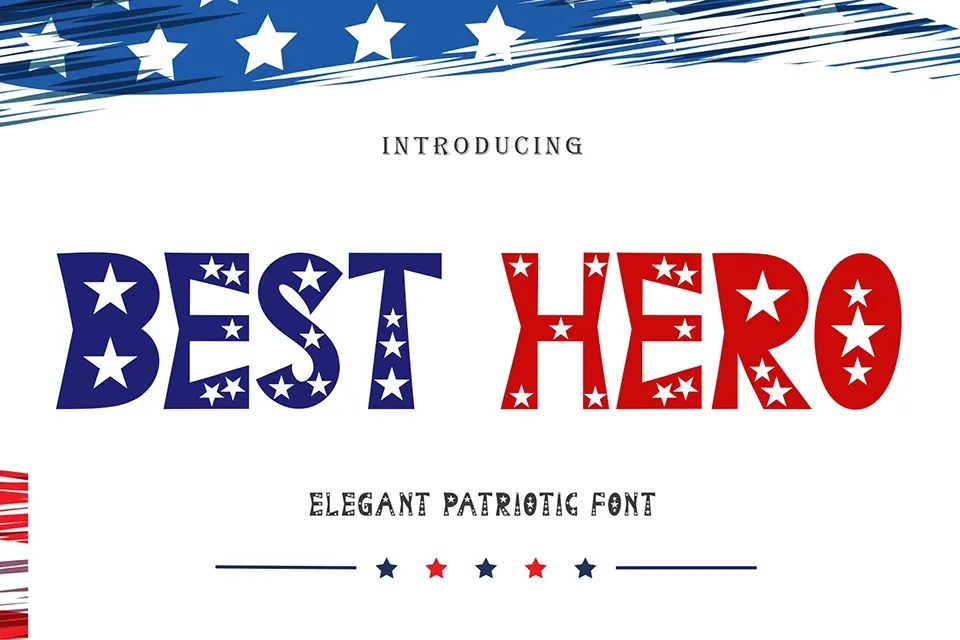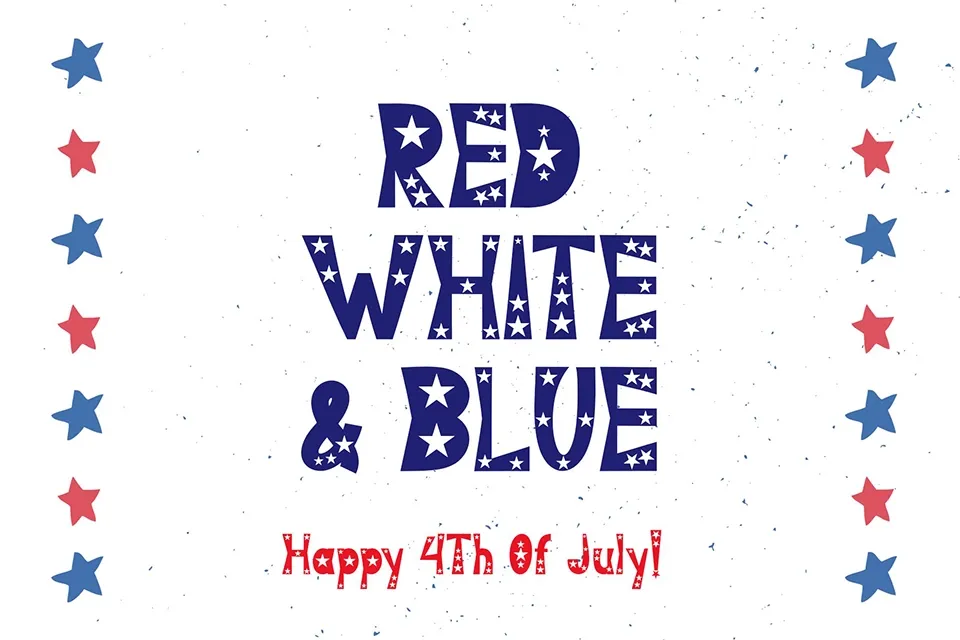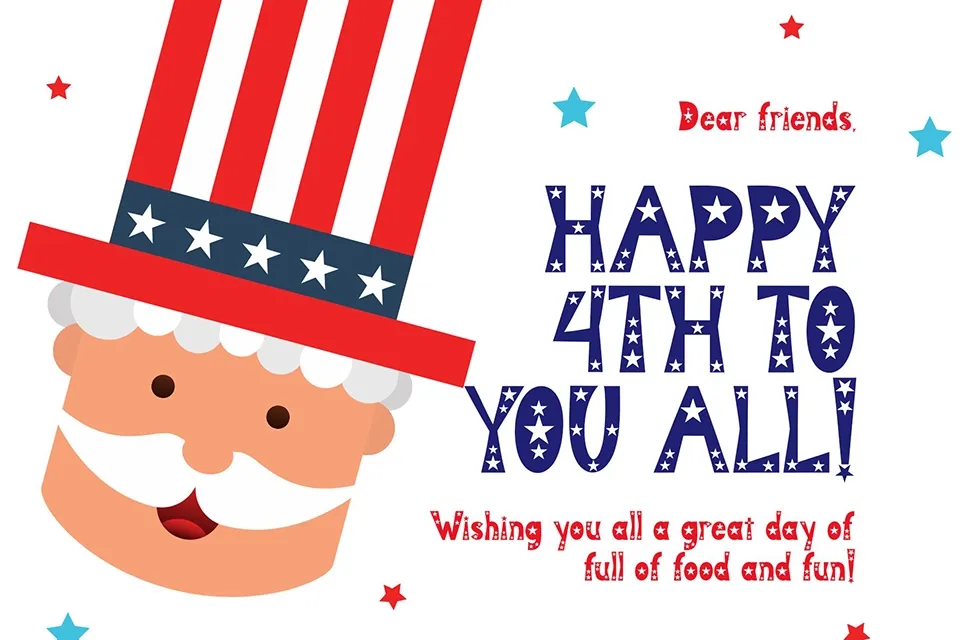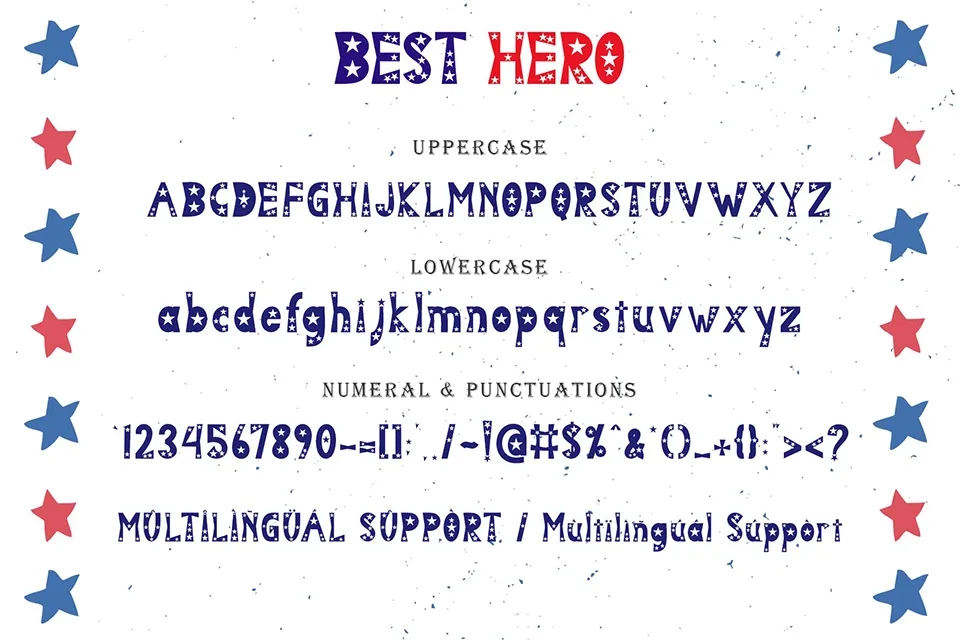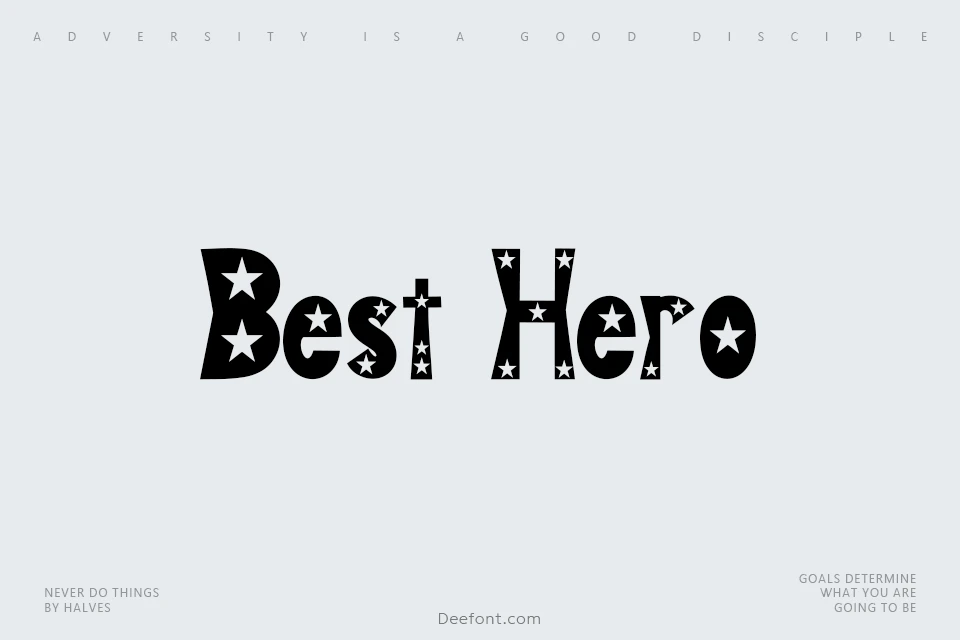
Best Hero Font
Best Hero Font is an elegant patriotic display typeface designed to make a bold statement. Featuring distinctive blocky letterforms filled with stars, this font embodies a festive and celebratory spirit. Its strong patriotic theme makes it perfect for national holidays like the 4th of July, memorial events, veteran tributes, or any project requiring a touch of heroism and national pride. Use Best Hero for eye-catching headlines, posters, banners, and themed graphics where you need a font that stands out with confidence and decorative flair. It brings a unique, impactful, and celebratory aesthetic to your designs.